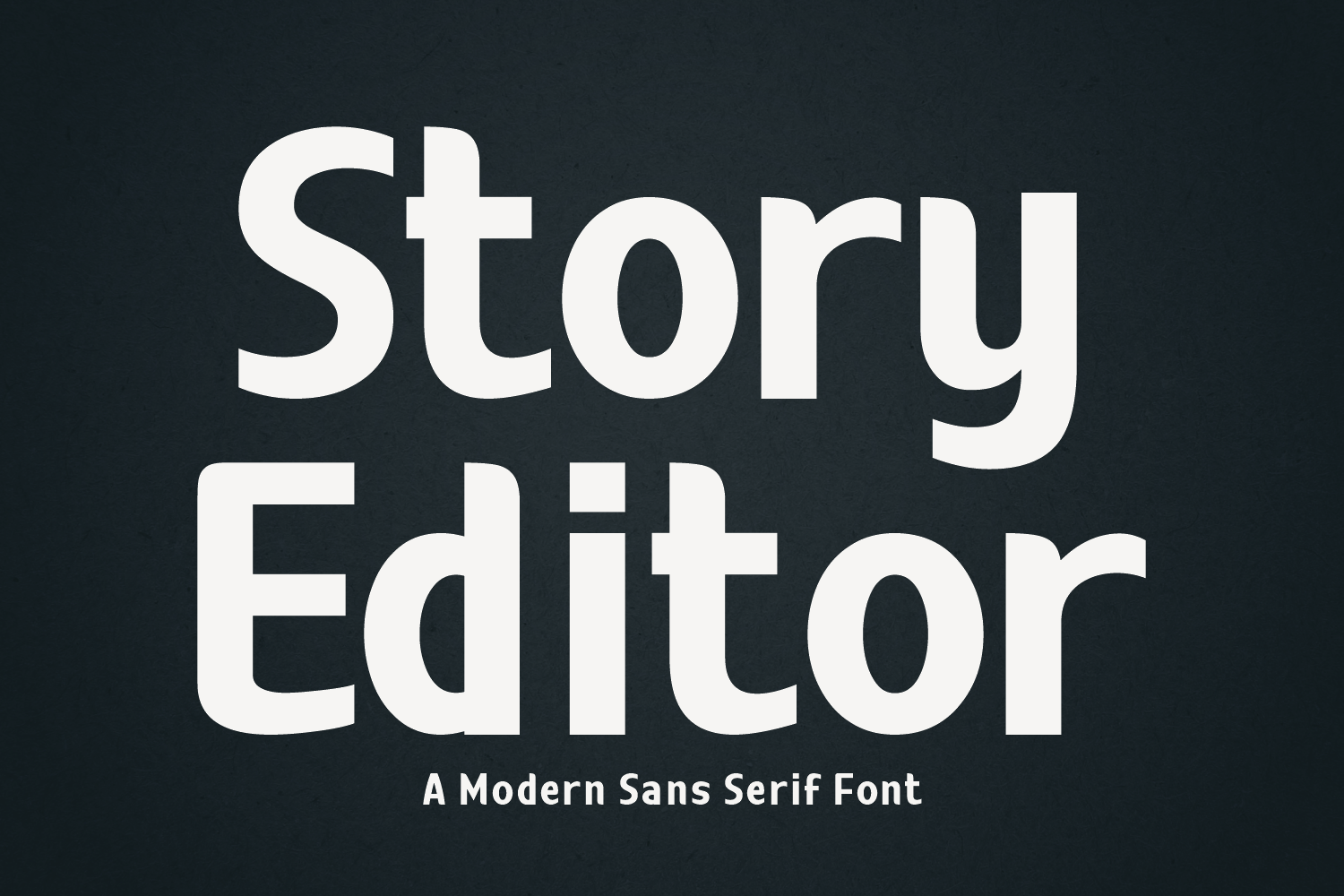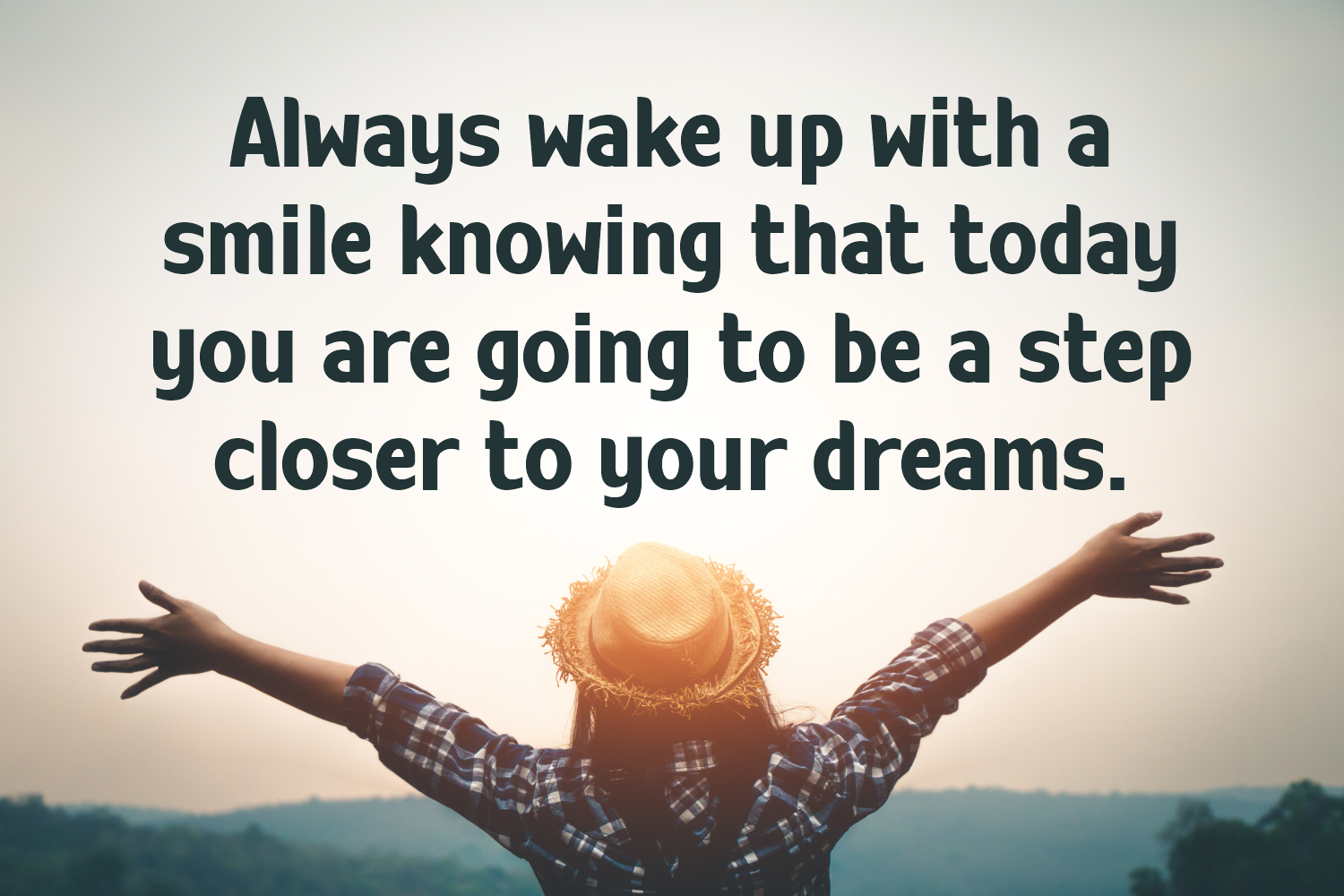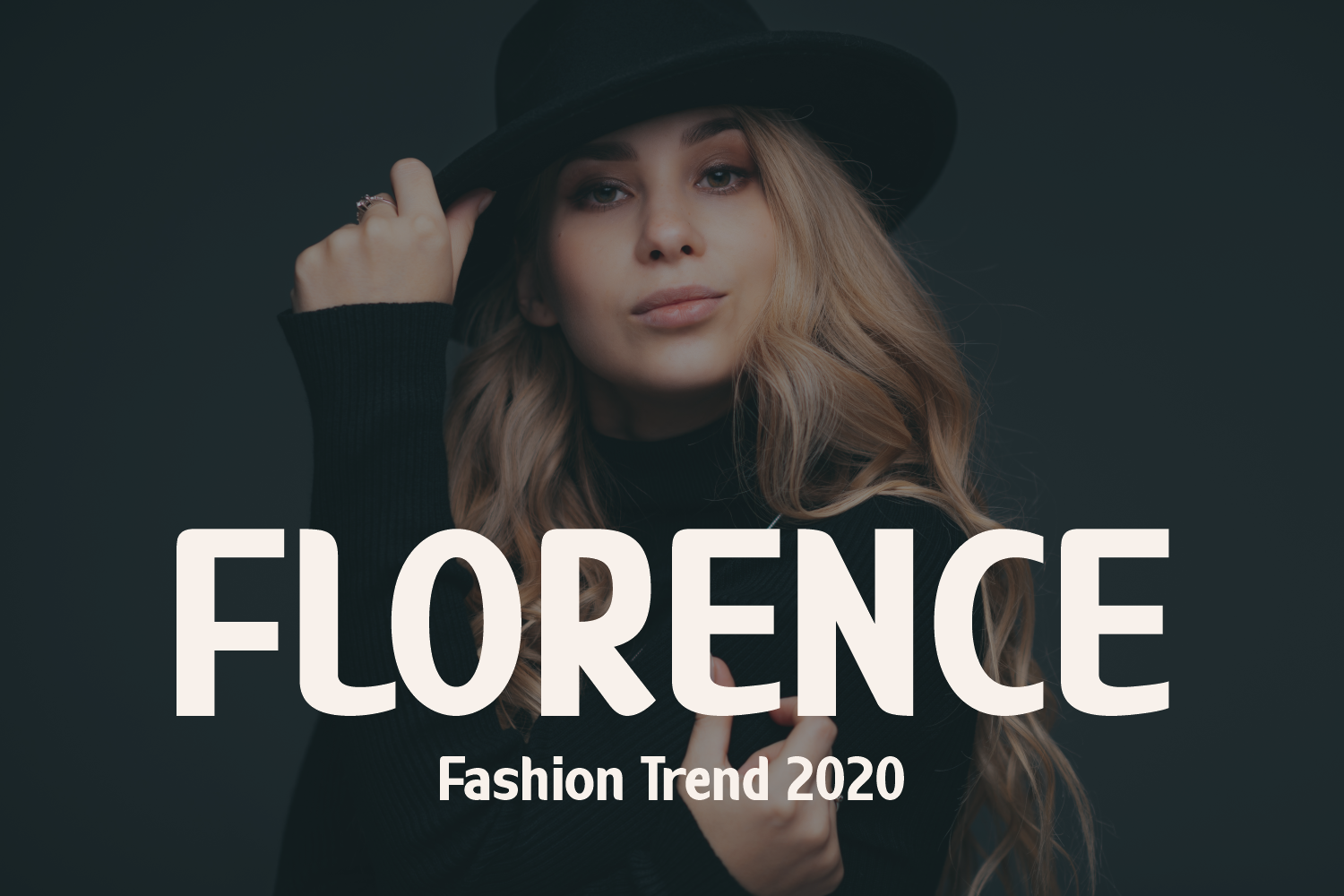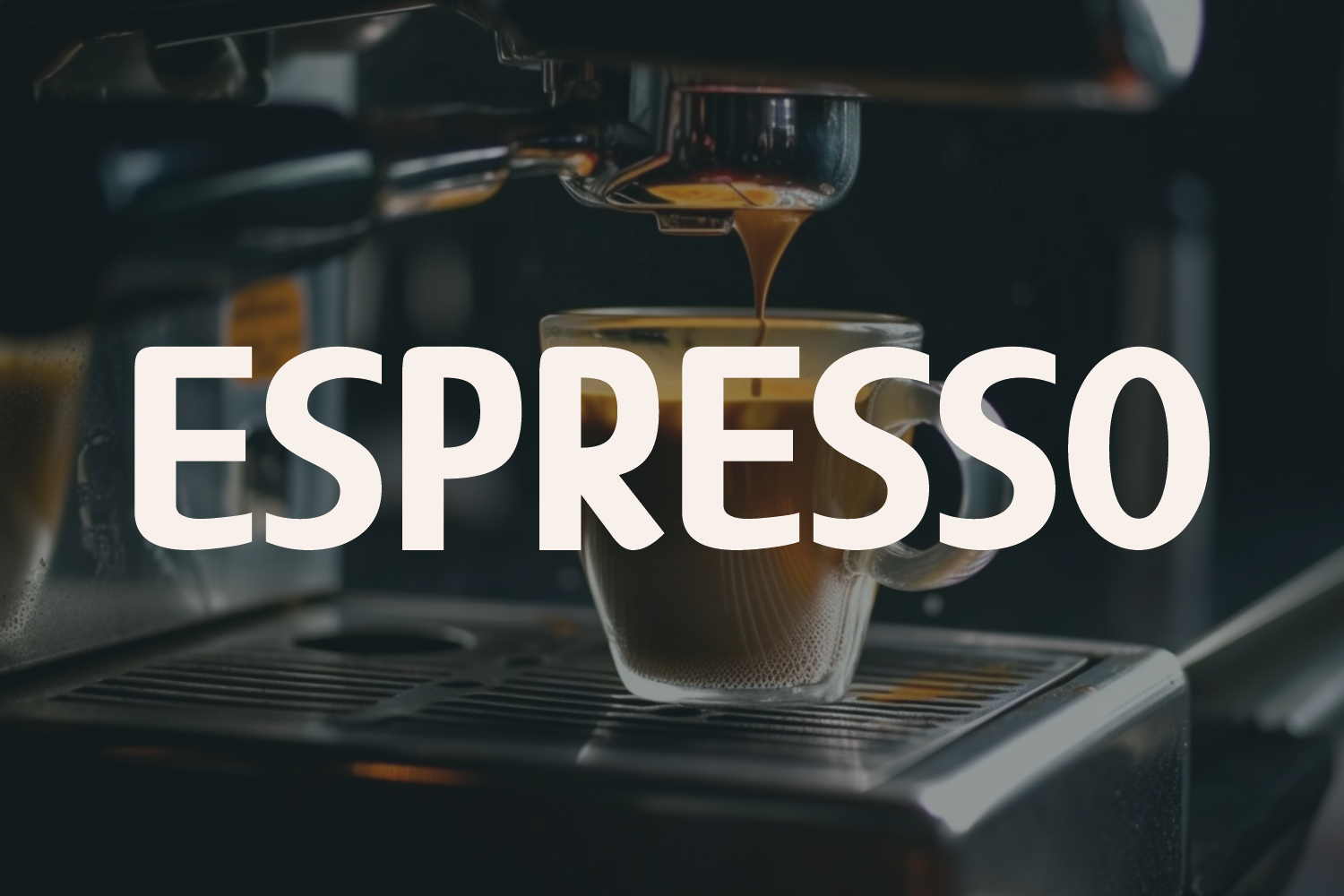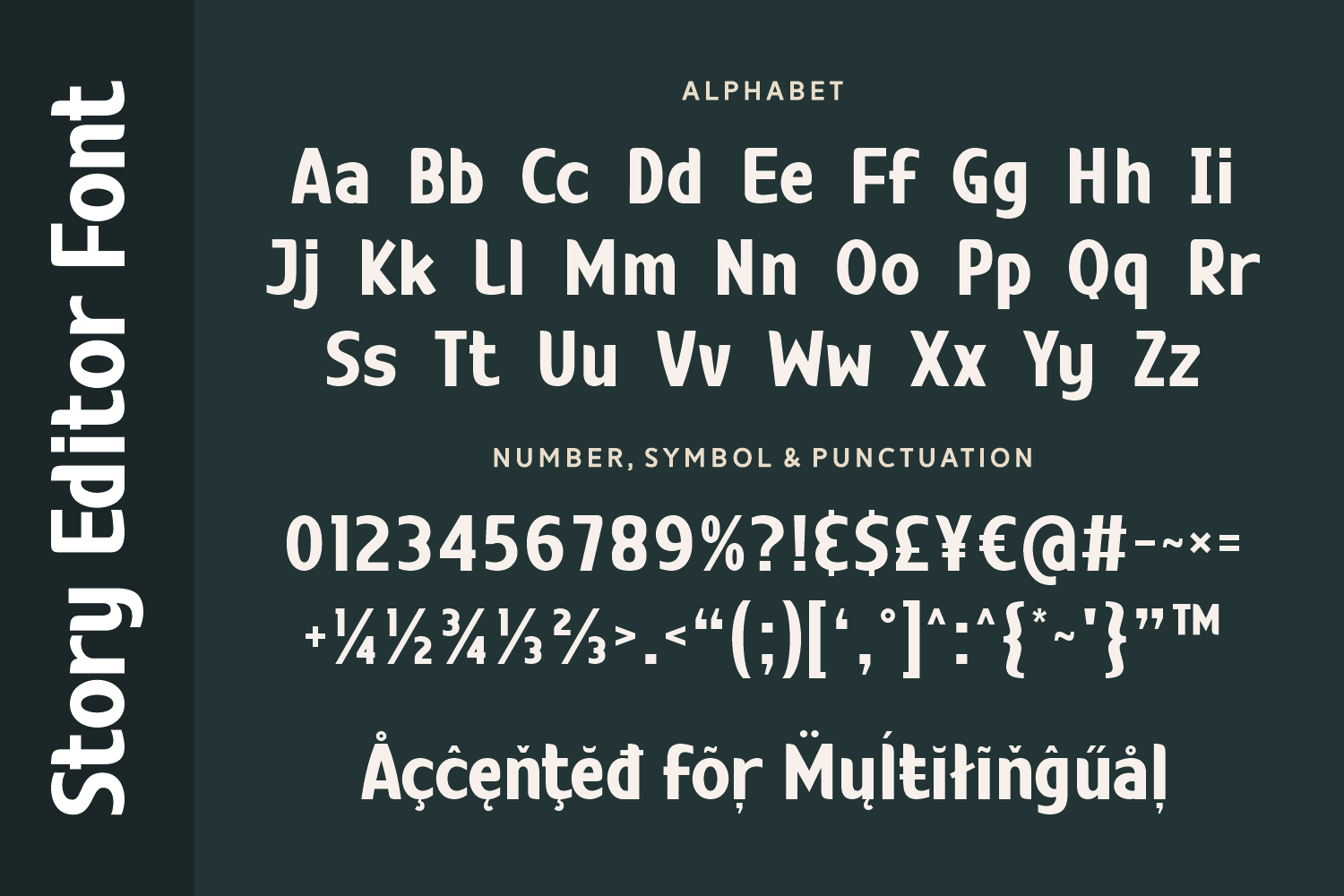
Story Editor is a versatile modern sans serif font with friendly curves and balanced proportions. It’s ideal for editorial design, branding, and digital interfaces where clarity and approachability are key.